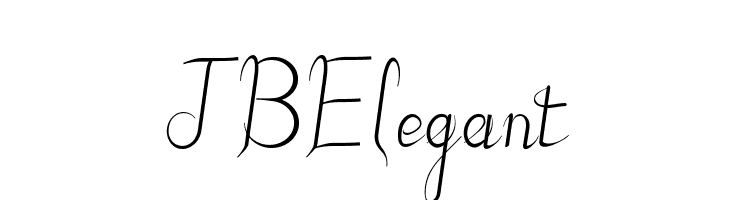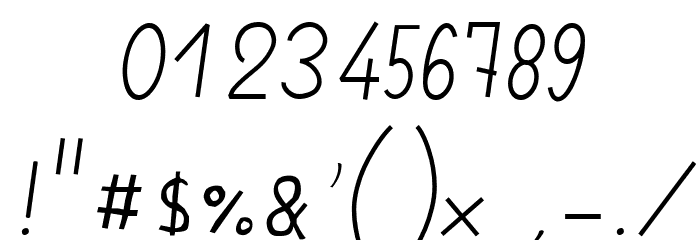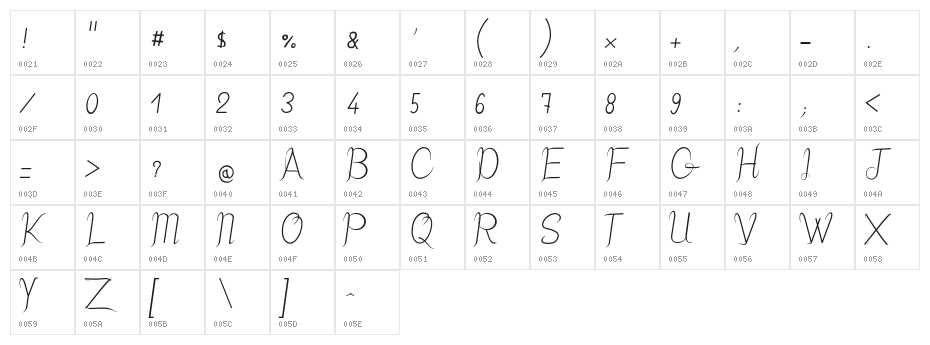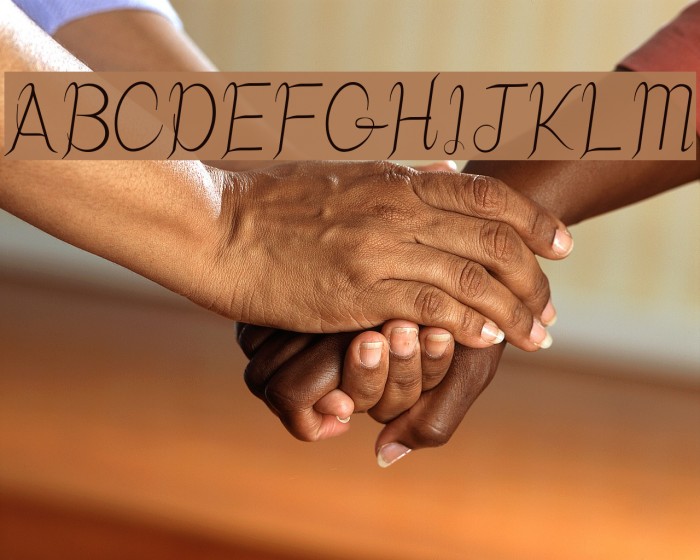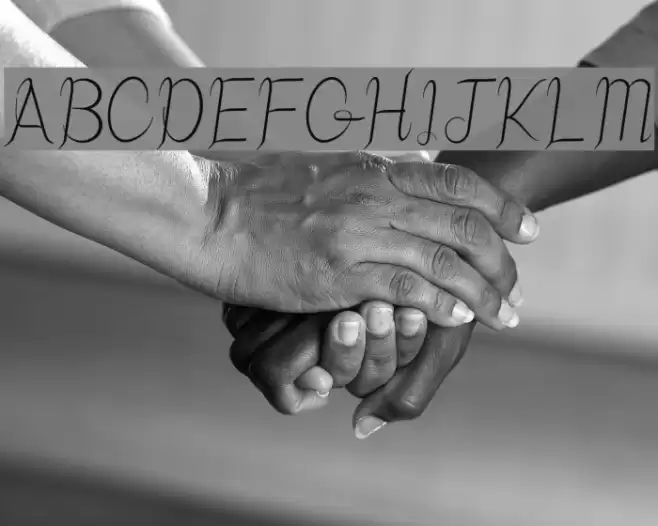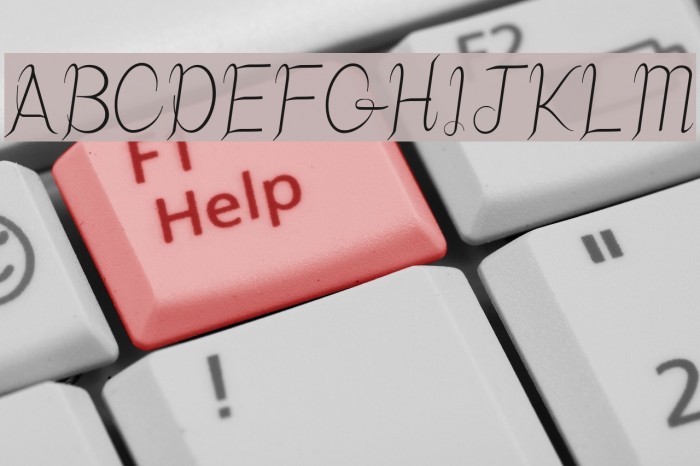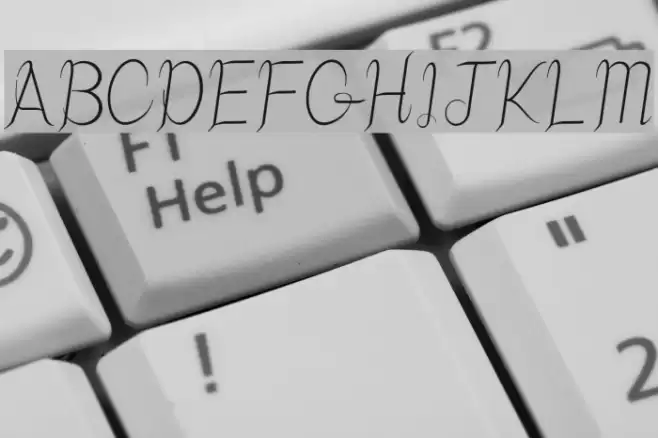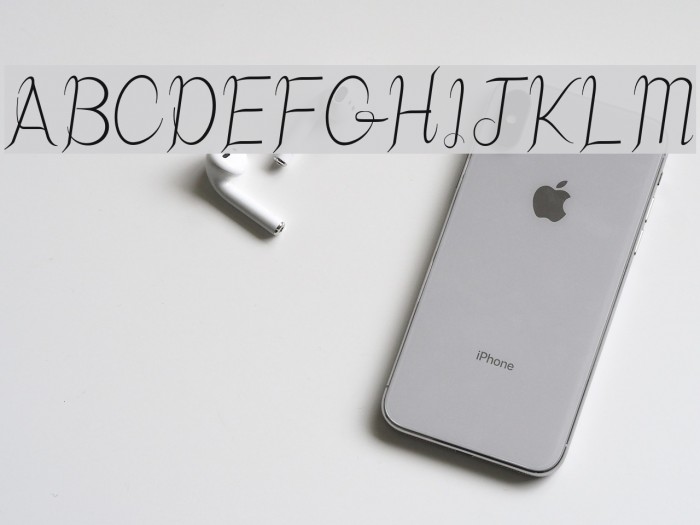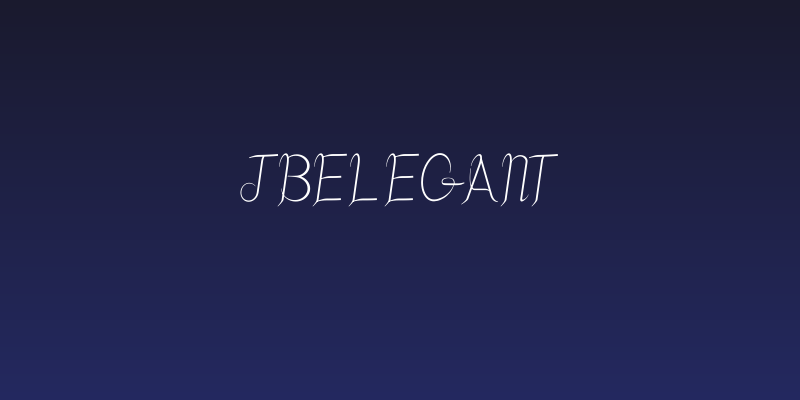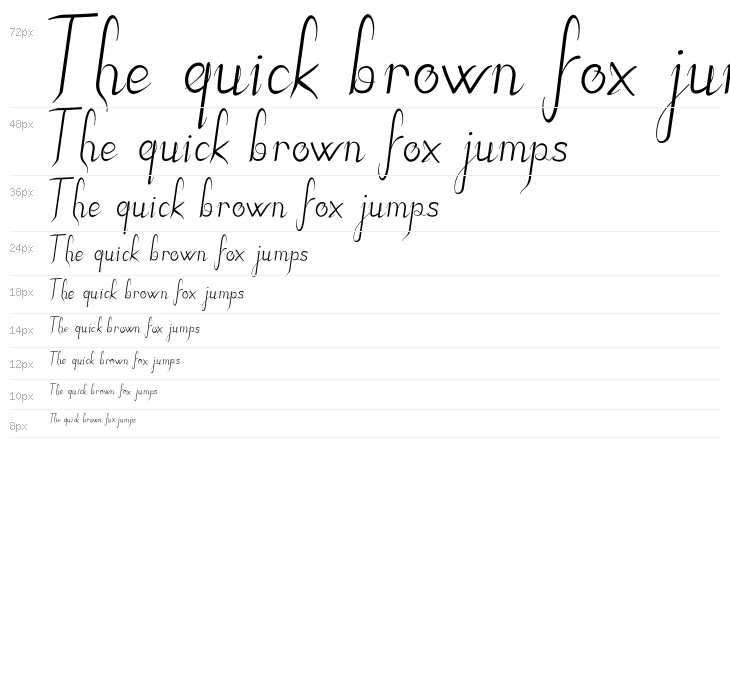
JBElegant Font
JBElegant Description
This font features an elegant and flowing script style, characterized by its thin, delicate strokes and graceful curves. The uppercase letters exhibit a sophisticated flair with elongated lines and subtle loops, while the lowercase letters maintain a consistent fluidity that enhances readability. The numerals are designed with a similar elegance, ensuring a cohesive look across all characters. Special characters are thoughtfully integrated, maintaining the font's overall aesthetic. This typeface exudes a sense of refinement and is ideal for projects that require a touch of class and sophistication.